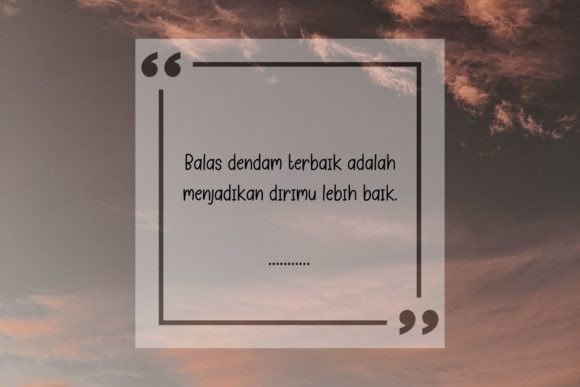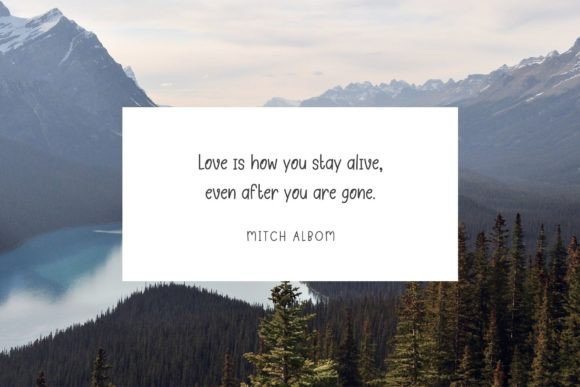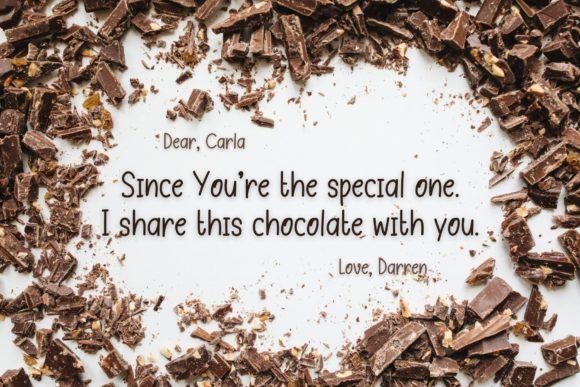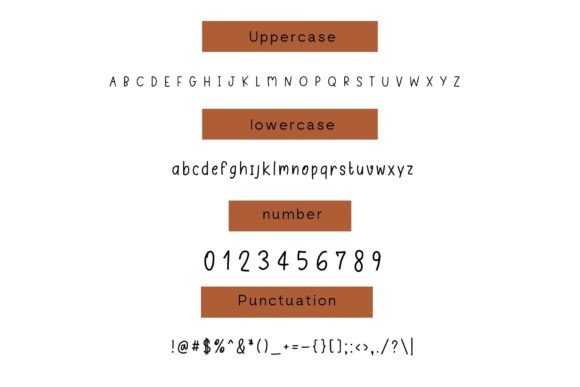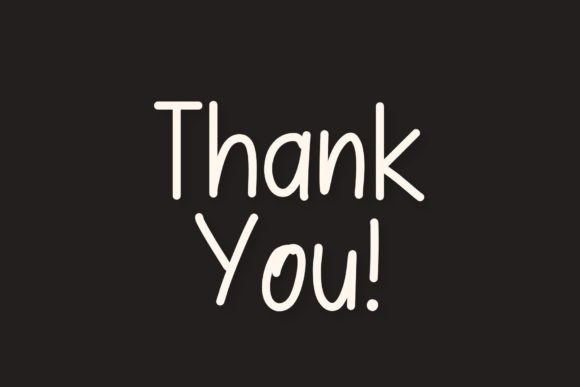
Dario Font: The Perfect Handwritten Font for Your Creative Projects
Are you looking for a font that embodies playfulness and authenticity? Look no further than Dario Font! This adorable handwritten font is perfect for adding a personal touch to your designs, making it ideal for a wide range of creative projects. In this article, we’ll explore the features and benefits of Dario Font, and show you how to make the most of this versatile font.
What is Dario Font?
Dario Font is a cute handwritten font that is designed to bring a sense of playfulness and authenticity to your designs. Its unique and charming style makes it perfect for a variety of projects, from blog posts and logos to branding, ads, invitations, greeting cards, planners, photo albums, decorations, and more.
Features of Dario Font
Dario Font has several features that make it a great choice for designers and crafters. Some of its key features include:
- Playful and Authentic Style: Dario Font has a unique and playful style that is sure to capture the attention of your audience.
- Handwritten Look: The font has a handwritten look that gives it a personal and authentic feel.
- Versatile: Dario Font is perfect for a wide range of projects, from digital designs to print materials.
- Easy to Read: The font is easy to read, making it perfect for body text and headings.
Benefits of Using Dario Font
There are many benefits to using Dario Font in your designs. Some of the benefits include:
- Adds a Personal Touch: Dario Font adds a personal touch to your designs, making them more relatable and engaging.
- Perfect for Branding: The font is perfect for branding, as it helps to create a unique and recognizable identity for your business.
- Increases Engagement: The playful and authentic style of Dario Font can help to increase engagement with your audience.
Project Ideas Using Dario Font
Dario Font is perfect for a wide range of projects, including:
- Blog Posts: Use Dario Font to add a personal touch to your blog posts and make them more engaging.
- Logos and Branding: Use the font to create a unique and recognizable identity for your business.
- Invitations and Greeting Cards: Use Dario Font to create beautiful and personalized invitations and greeting cards.
- Planners and Photo Albums: Use the font to add a personal touch to your planners and photo albums.
- Decorations: Use Dario Font to create beautiful and personalized decorations for your home or office.
Dario Font is a versatile and charming handwritten font that is perfect for adding a personal touch to your designs. Its playful and authentic style makes it ideal for a wide range of creative projects, from blog posts and logos to branding, ads, invitations, greeting cards, planners, photo albums, decorations, and more. With its ease of use and flexibility, Dario Font is a great choice for designers and crafters looking to add a unique and recognizable style to their work.